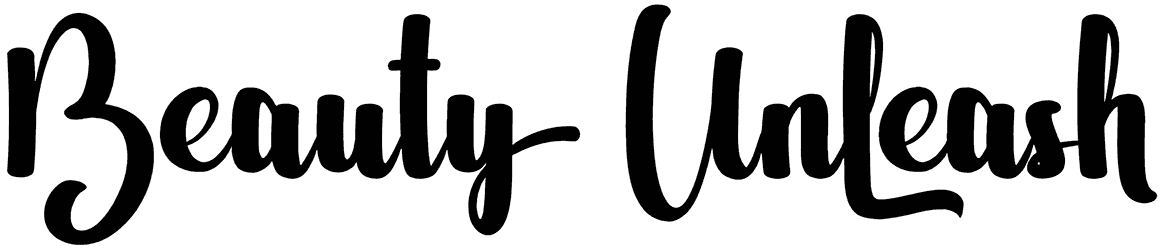
Beauty Unleash Font
Alter the modest style of your text and create a natural and captivating layout with a script font like Beauty Unleash. The soft and curly form of letters is going to make your design ravishing. Beauty Unleash font doesn’t offer numbers and punctuation marks, yet it can be an awesome selection for a birthday party invitation card, or many other projects.